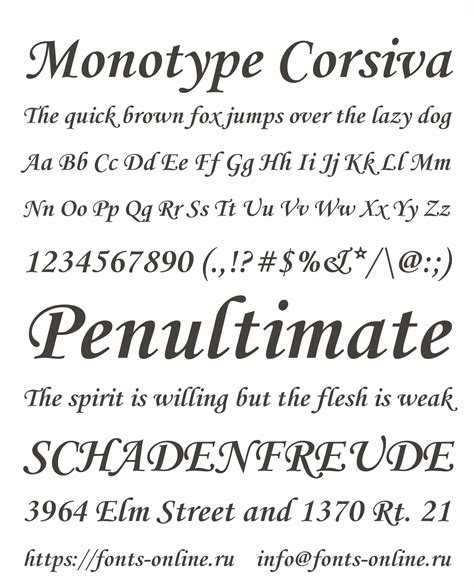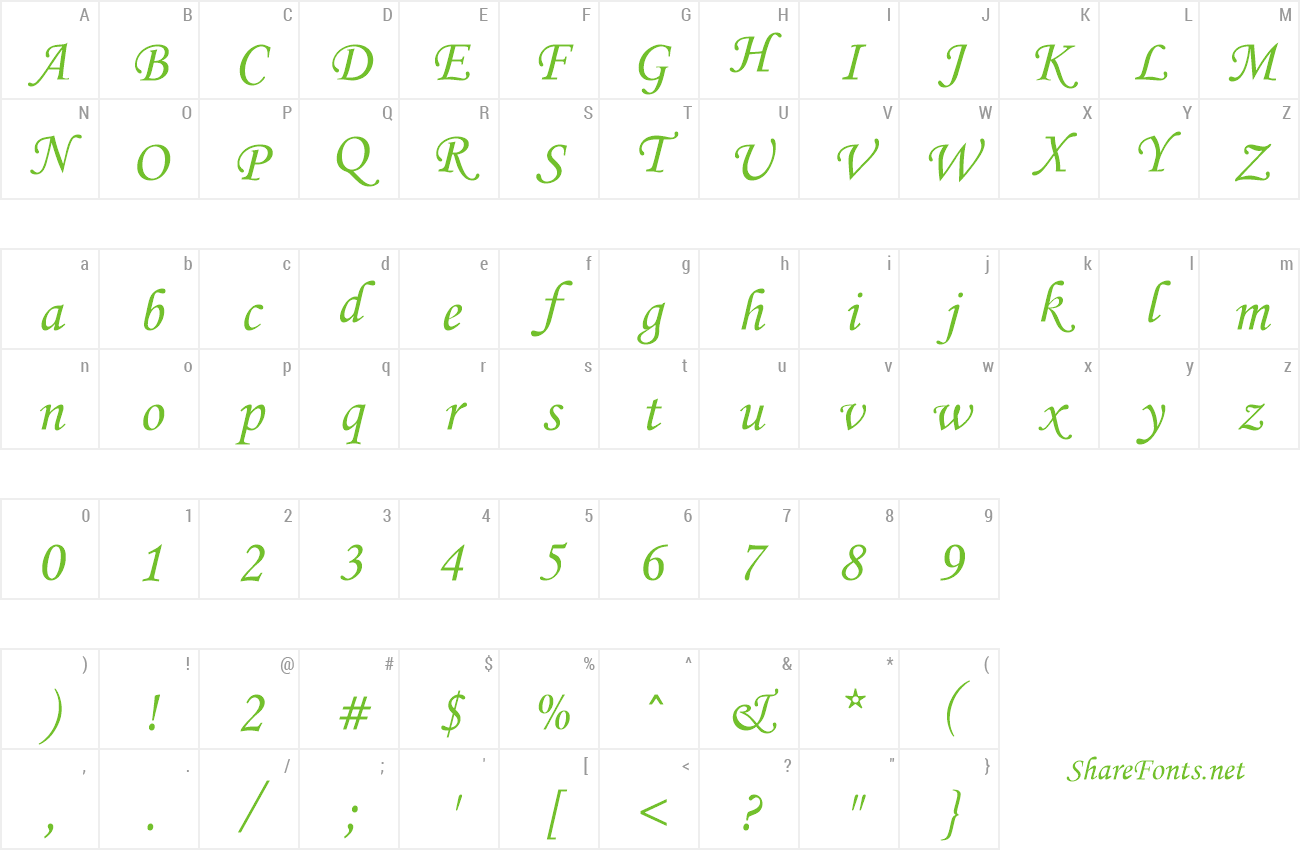
Monotype Corsiva Font. Web monotype corsiva® bold italic. Web mti/hp 80 font set.
Monotype corsiva is an italic typeface made in the style of the early. Web mti/hp 80 font set. Web monotype corsiva® bold italic. Web monotype corsiva is an italic typeface made in the style of the early italian cursives as exemplified by the work of the writing.
Web monotype corsiva is an italic typeface made in the style of the early italian cursives as exemplified by the work of the writing. Monotype corsiva is an italic typeface made in the style of the early. Web mti/hp 80 font set. Web monotype corsiva is an italic typeface made in the style of the early italian cursives as exemplified by the work of the writing. Web monotype corsiva® bold italic.